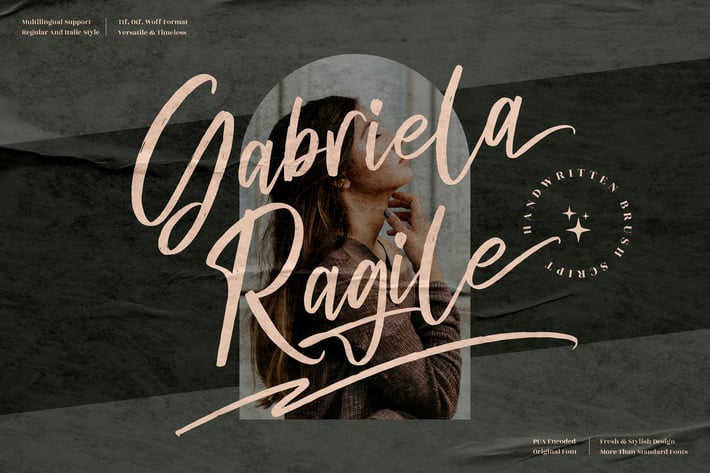
Gabriela Ragile Handwritten Font
Gabriela Ragile is a brush-style signature script with bold contrast, inky texture, and sweeping swashes that feel effortlessly chic. A steady baseline and generous curves create a modern, feminine flow that suits fashion lookbooks, beauty brands, and moody quote graphics. Paired Regular & Italic styles make headline/accent combinations simple and stunning. Make every word feel like a keepsake note.
+ Regular & Italic styles for easy pairing
+ OpenType ligatures & alternates for natural handwriting
+ Long swashes and underlines for dramatic signatures
+ Smooth kerning and clean curves for pro results
+ Multilingual support (Western European characters)
+ Signature logos & personal branding
+ Beauty, fashion & lifestyle packaging
+ Wedding invitations, RSVPs & place cards
+ Social media posts, story covers & reels text
+ Quote posters & wall art
+ Blog headers & website hero text
+ Business cards & thank-you cards
+ Photo watermarks & editorial spreads
Let your message linger—Gabriela Ragile turns simple words into memorable moments.